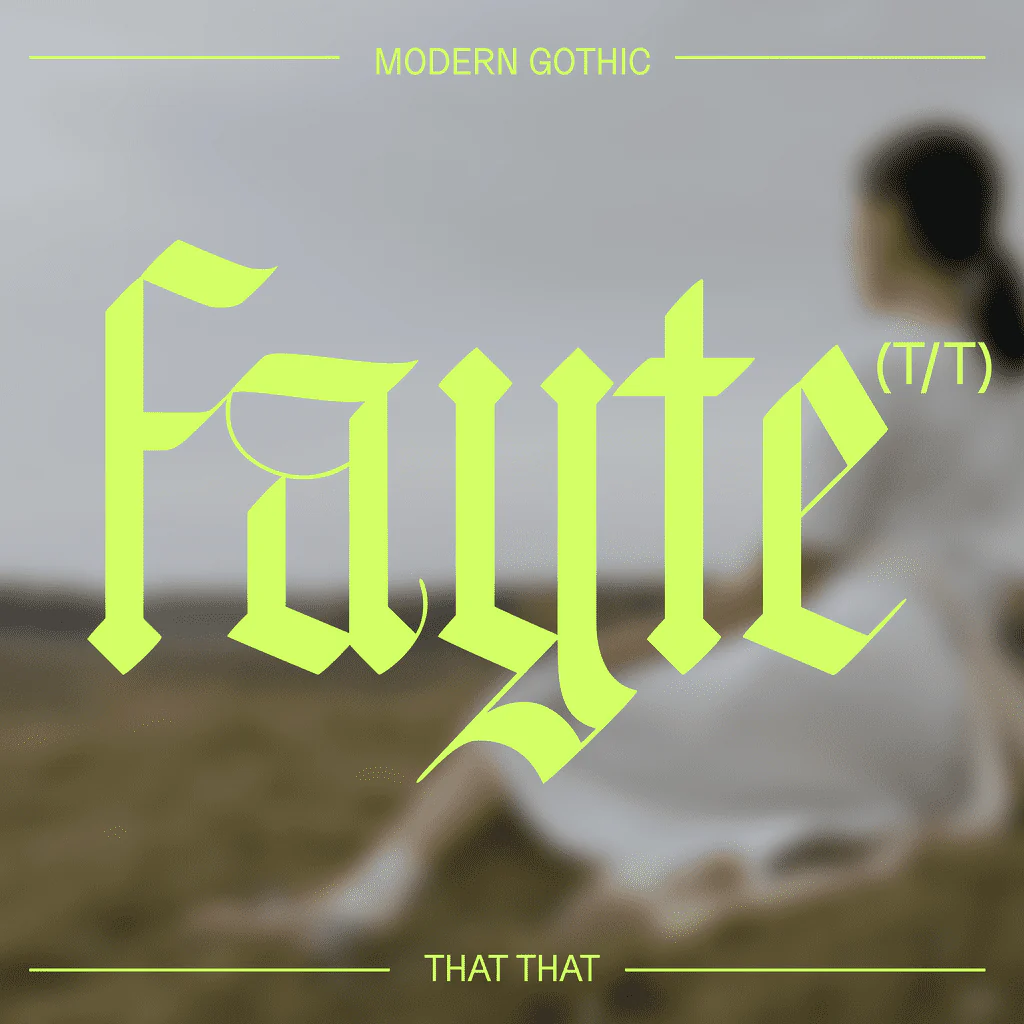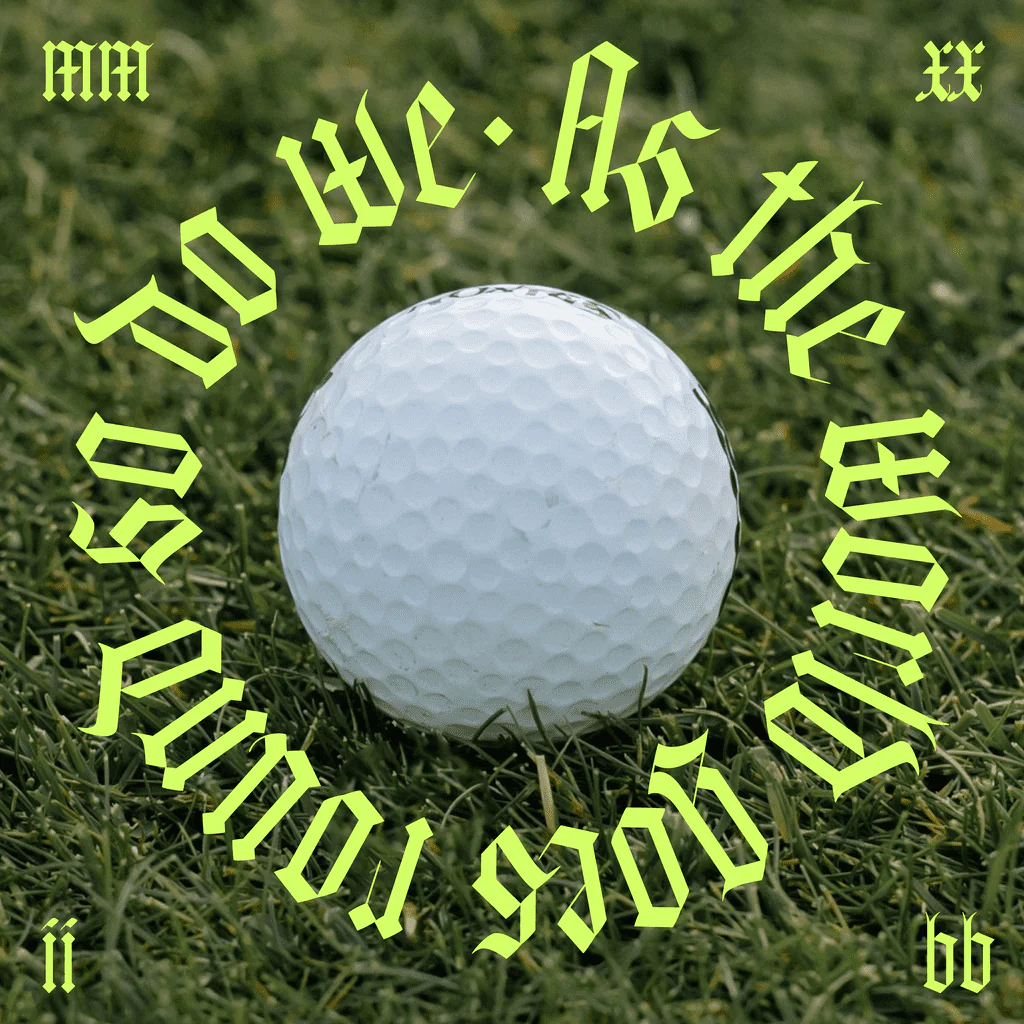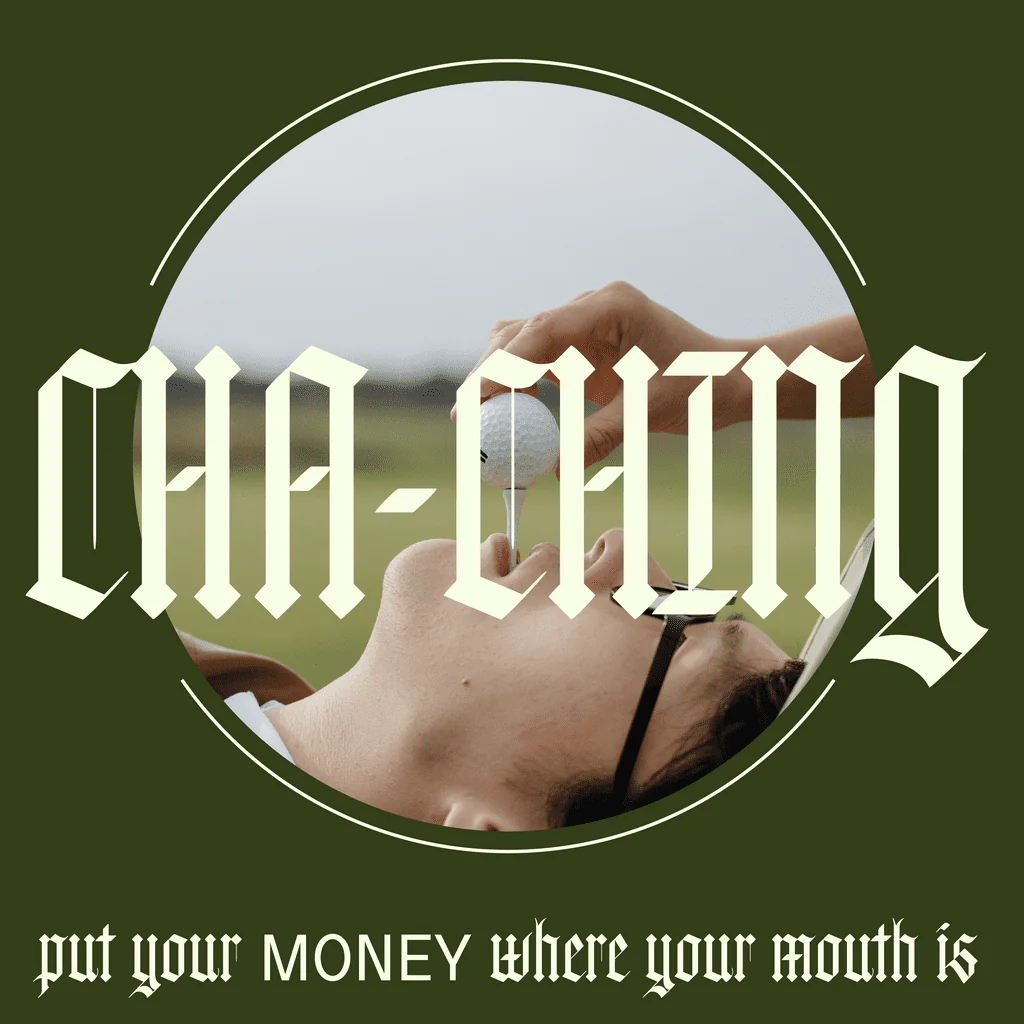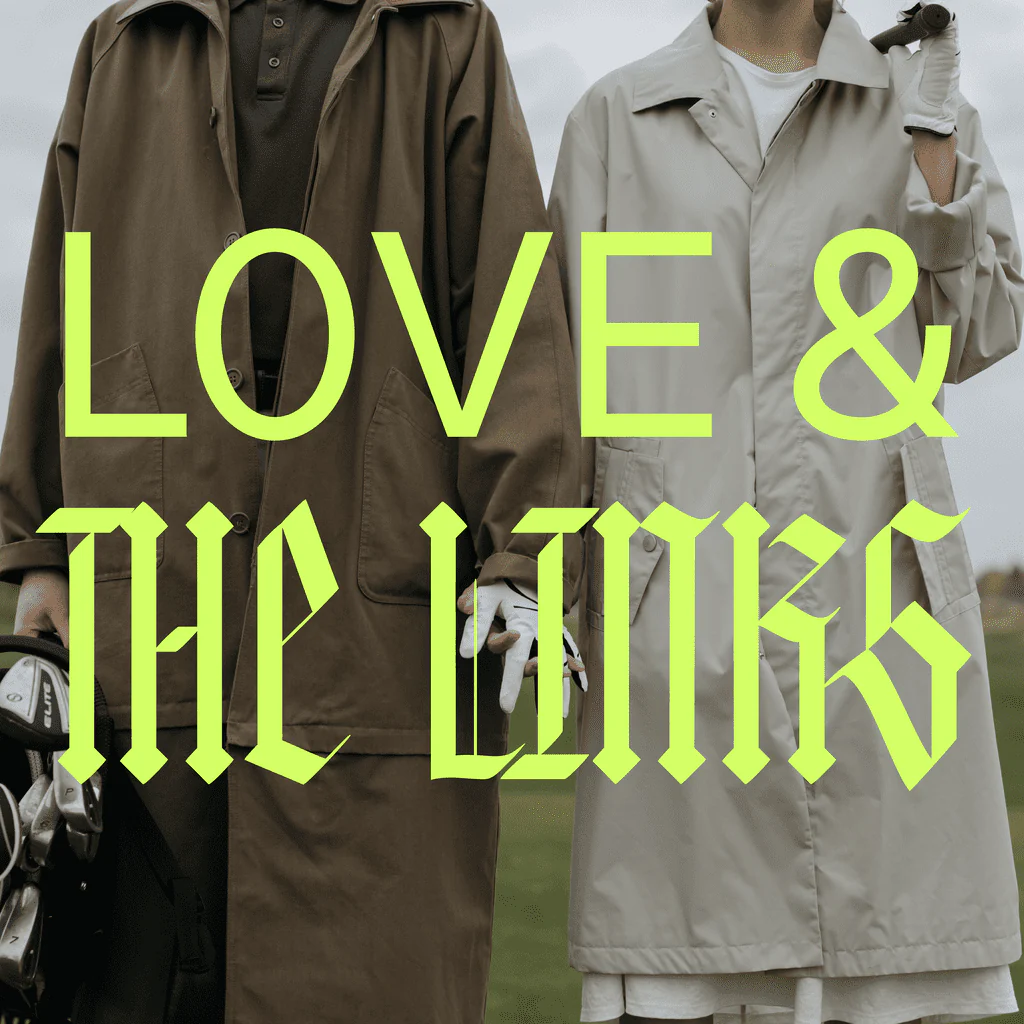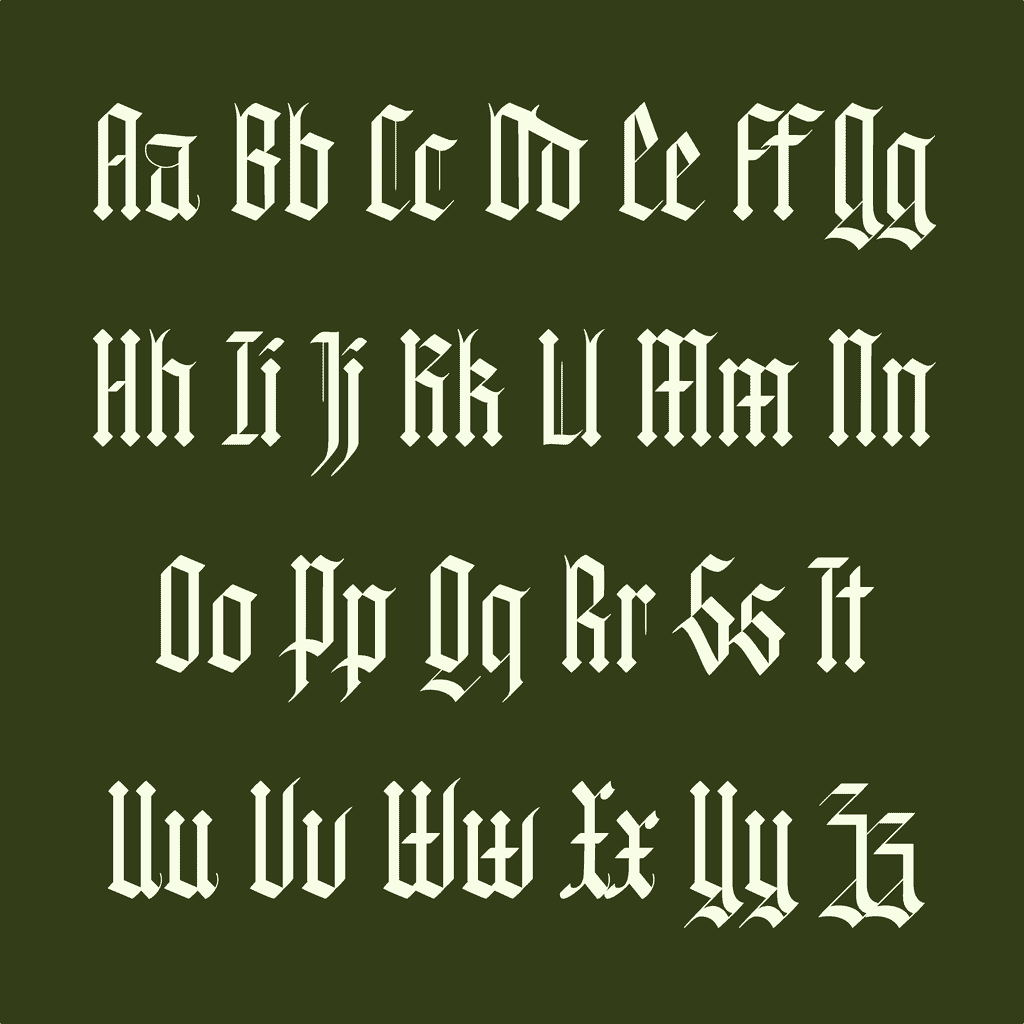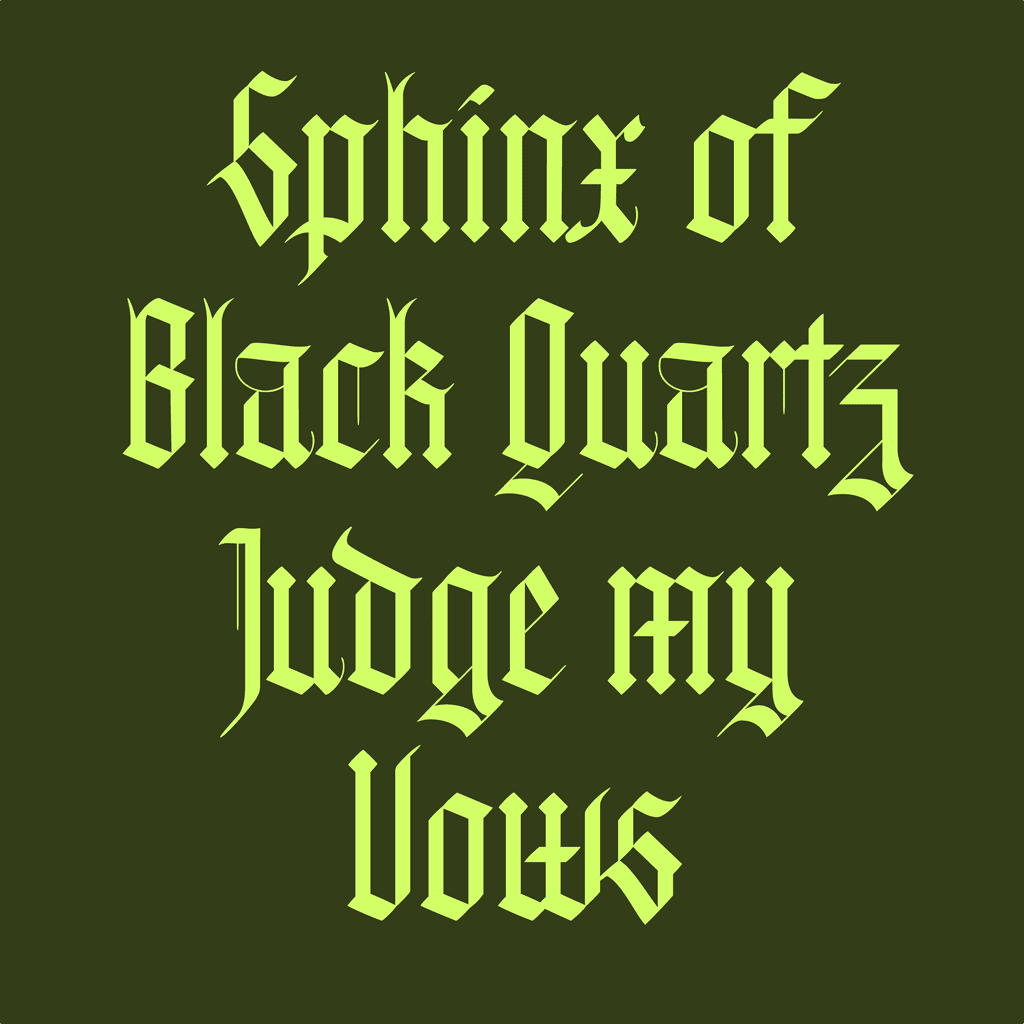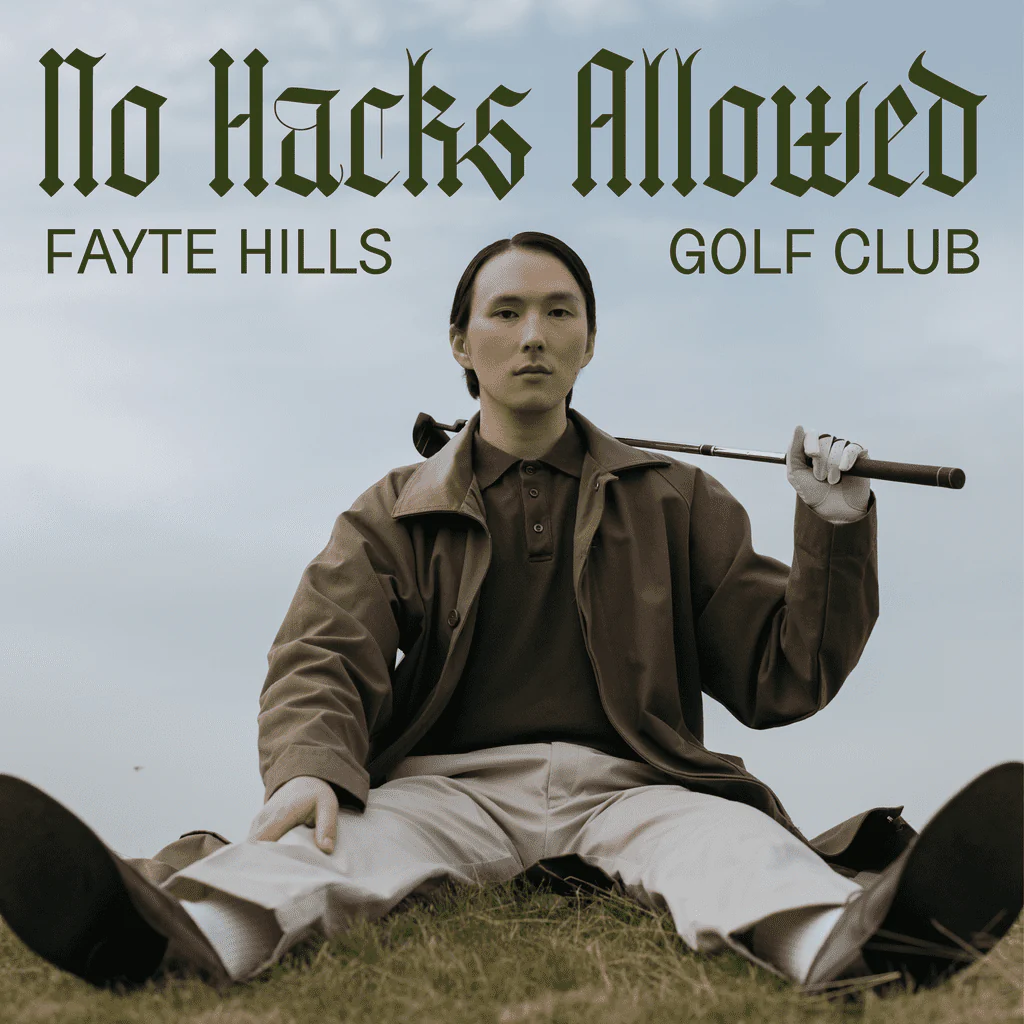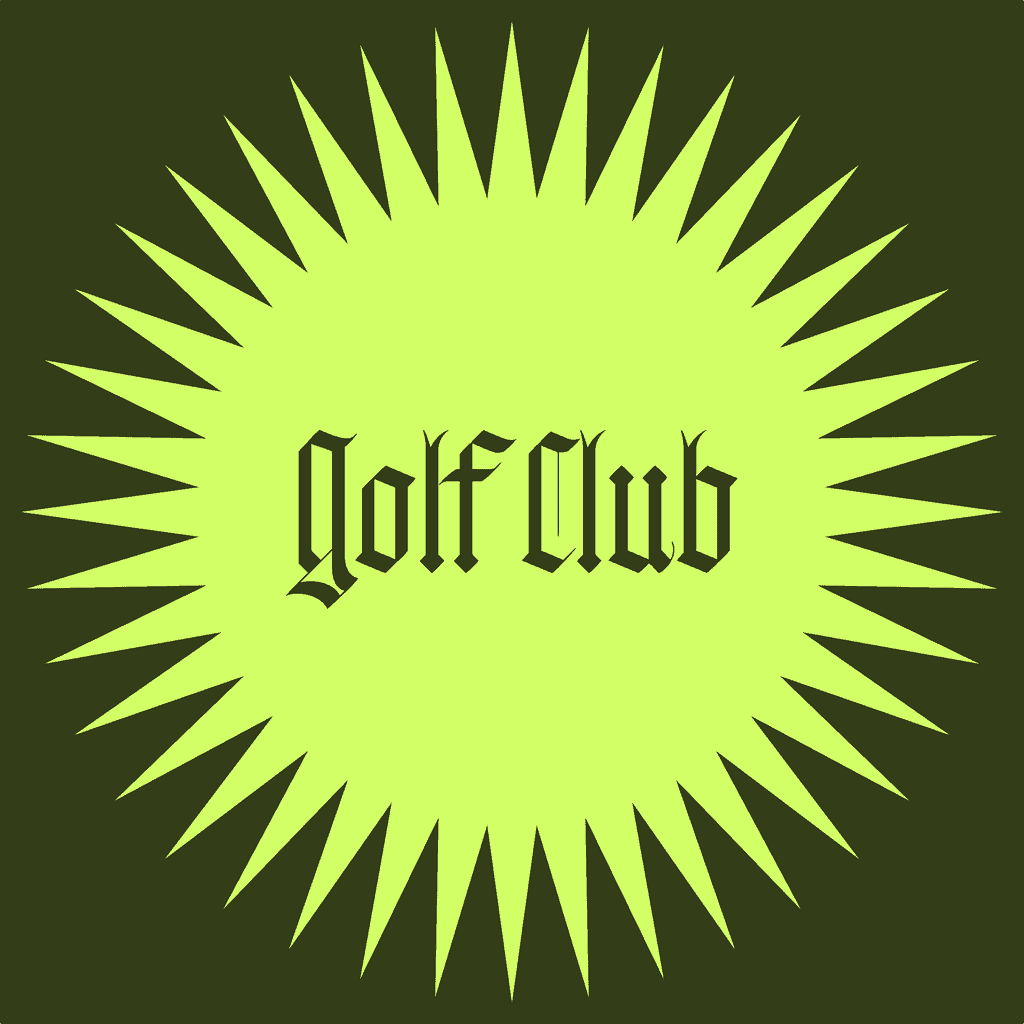
Fayte
Fayte is a blackletter typeface inspired by the minuscule characters of textura quadrata calligraphy. However, Fayte makes several modern departures from tradition to create a contemporary feel. The uppercase letters adopt a more conservative structure that harmonizes with the lowercase letters, moving away from the ornate look typically associated with blackletter fonts.
The x-height is slightly elevated beyond the traditional proportions of textura quadrata, and the width is subtly condensed, giving Fayte a strong vertical presence while retaining the classic blackletter essence. This unique combination results in a typeface that is both timeless and modern, perfect for a wide range of design applications.
Fayte is a blackletter typeface inspired by the minuscule characters of textura quadrata calligraphy. However, Fayte makes several modern departures from tradition to create a contemporary feel. The uppercase letters adopt a more conservative structure that harmonizes with the lowercase letters, moving away from the ornate look typically associated with blackletter fonts.
The x-height is slightly elevated beyond the traditional proportions of textura quadrata, and the width is subtly condensed, giving Fayte a strong vertical presence while retaining the classic blackletter essence. This unique combination results in a typeface that is both timeless and modern, perfect for a wide range of design applications.